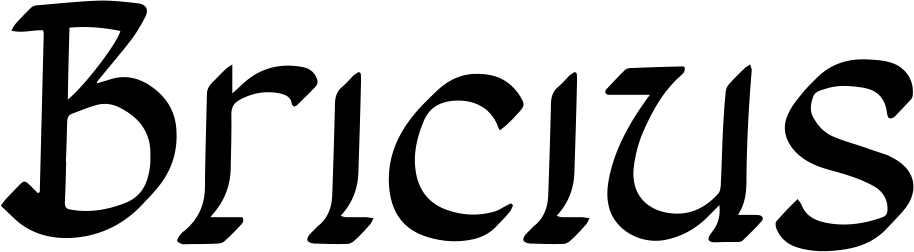
Bricius Font
Looking extremely worthy for both classic and modern designing of posters, logos, movie titles, album covers, and whatever you want to show off through its trendy and aesthetic look while inspired by the gothic font.
Although this Bricius font doesn’t incorporate a complete set of punctuation marks, make sure that it will be handy in many statuses to bring satisfactory results, get ahead of others, and also please any eye at first sight.
Bricius is a celtic style display font combined with a modern design, this font is modern, elegant and looks aesthetic.
This unique display typeface is inspired by celtic styles.